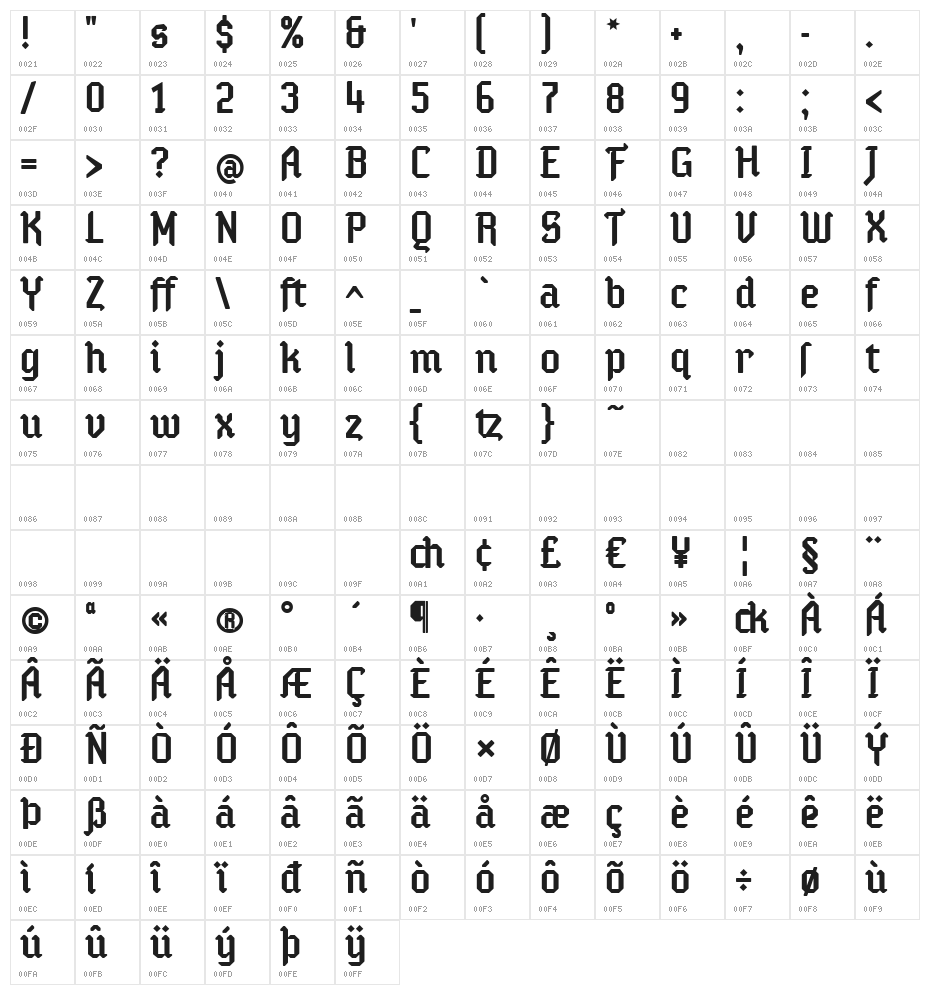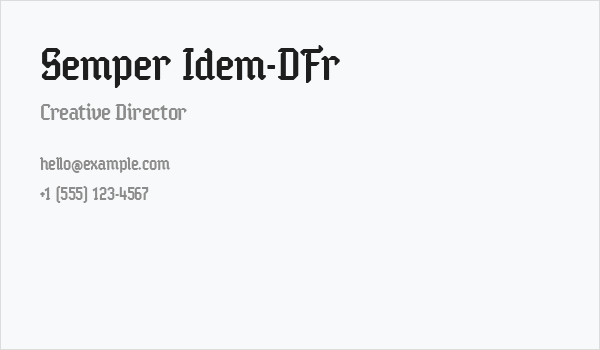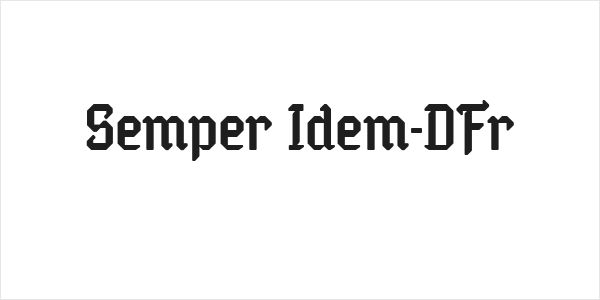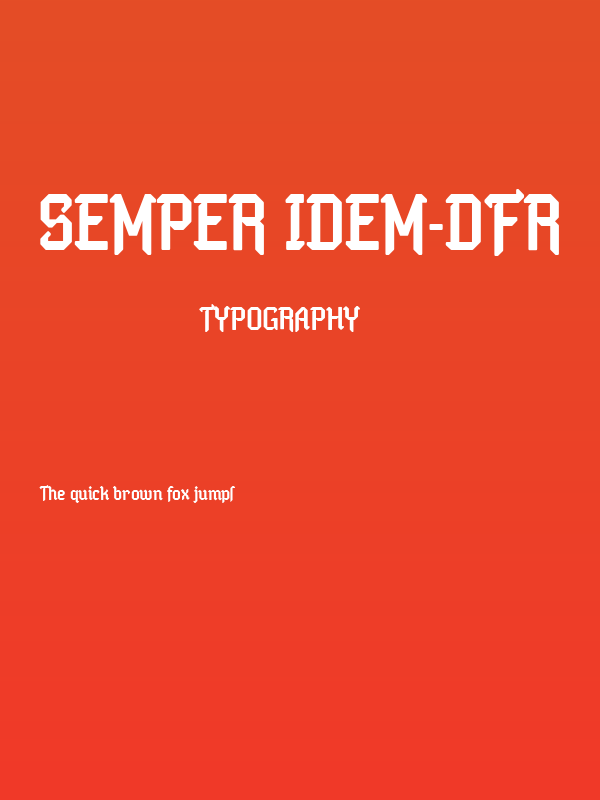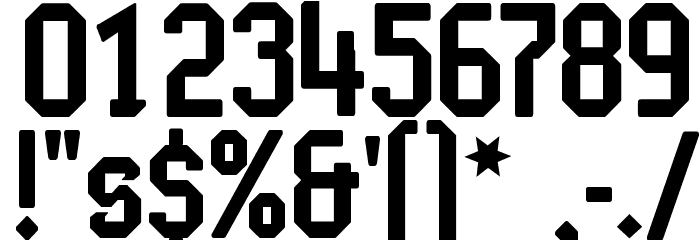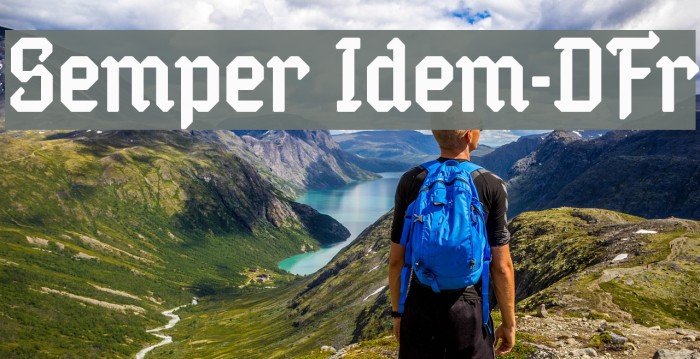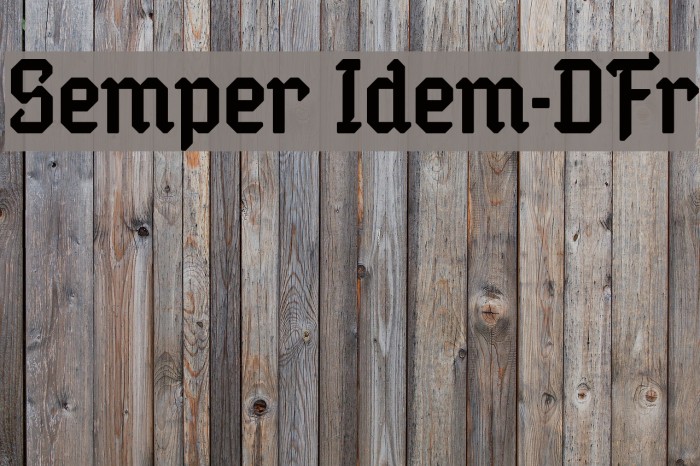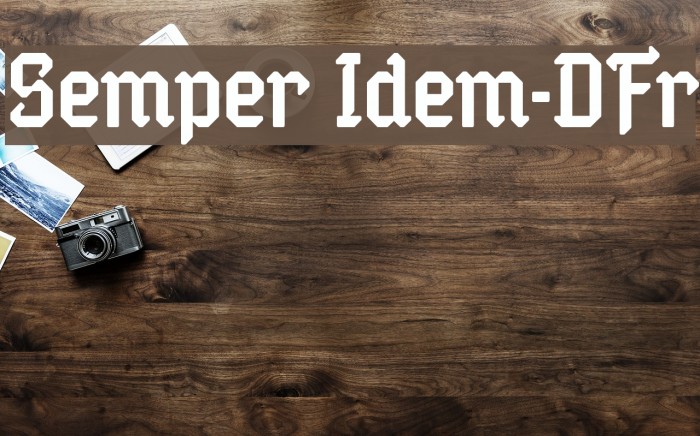
Semper Idem-DFr Font
Semper Idem-DFr Description
This font features a bold and striking design with a strong geometric structure. The characters are angular and have a distinct Gothic influence, reminiscent of traditional blackletter styles. The uppercase letters are particularly bold, with sharp edges and a commanding presence. The lowercase letters maintain the same angular style, offering a cohesive look across the typeface. The numerals are equally bold and geometric, ensuring consistency throughout. Special characters are designed to match the overall aesthetic, making this font suitable for impactful and attention-grabbing designs.